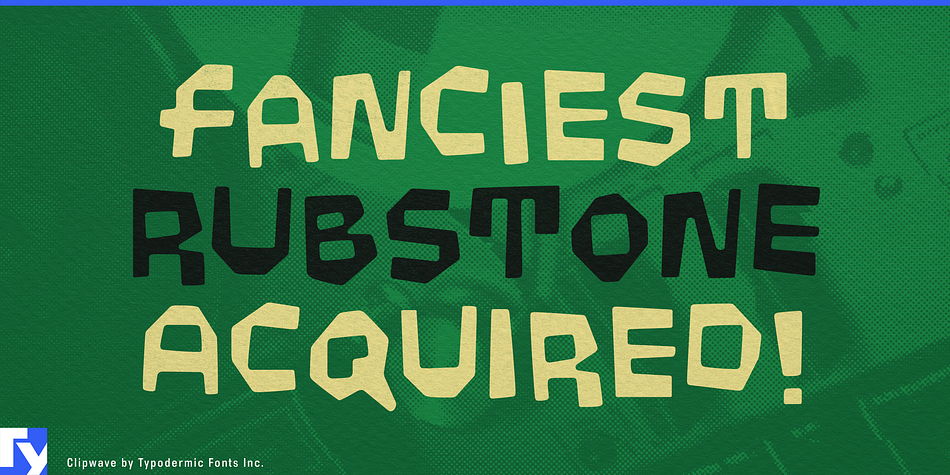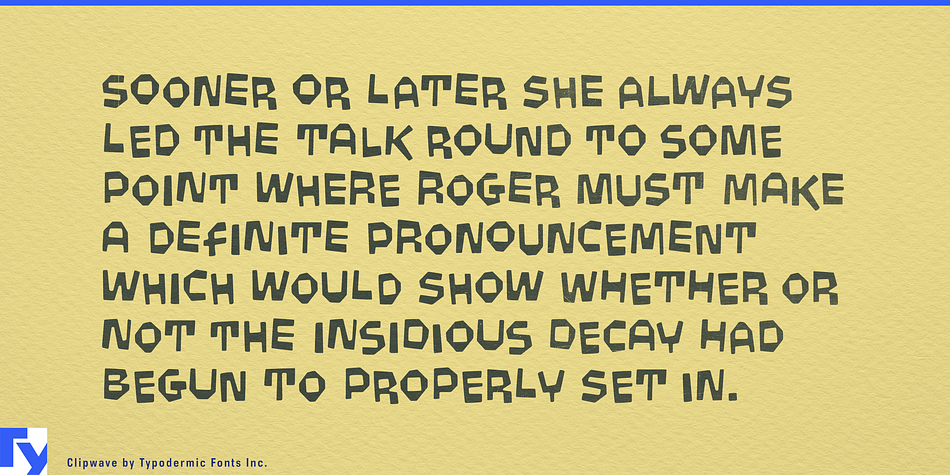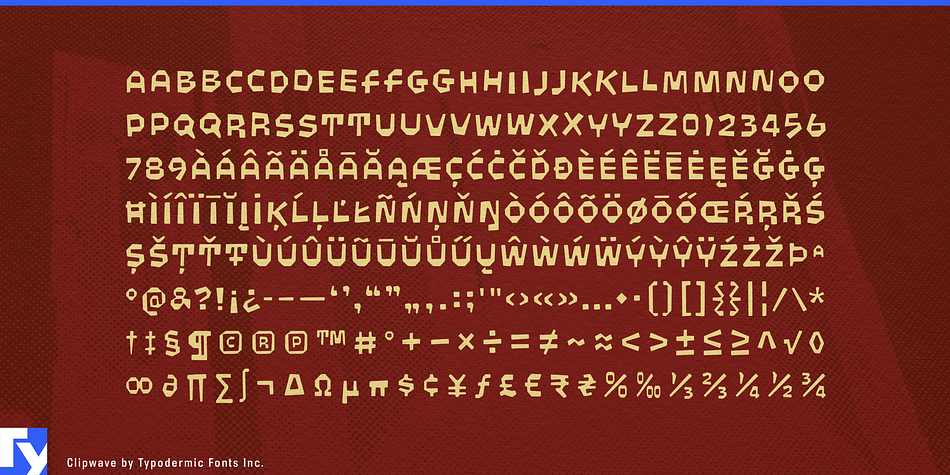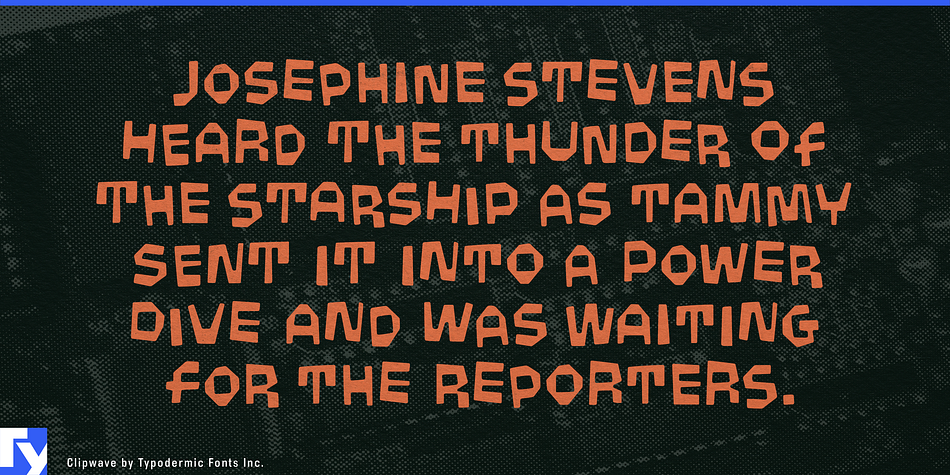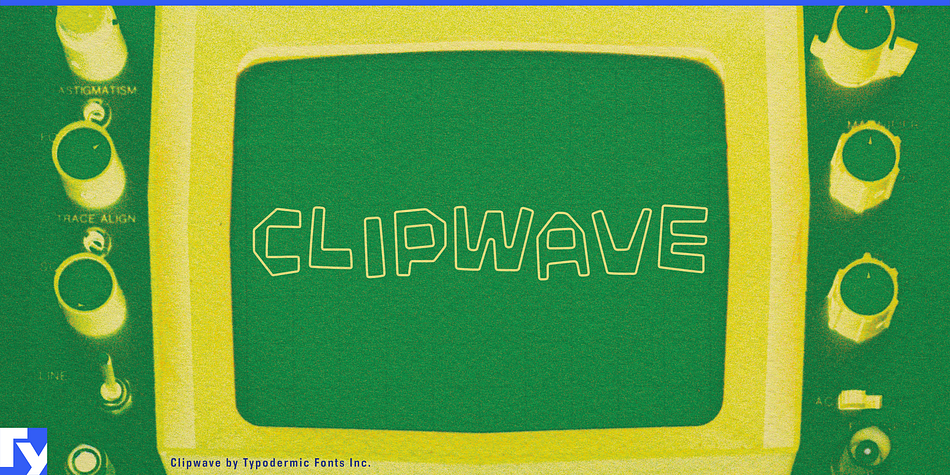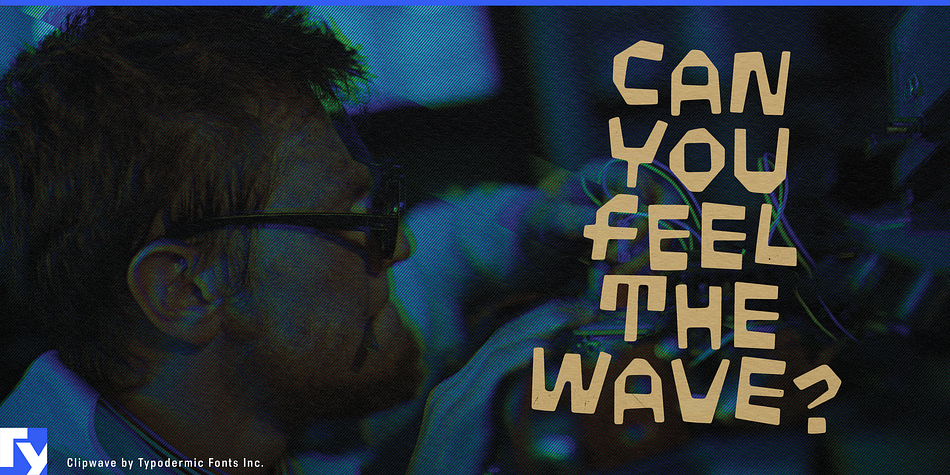
Clipwave is a novelty and retro font published by Typodermic Fonts Inc.
Crimped wires and robot vacuum tracking patterns were the inspiration for this loose headliner. If your app supports OpenType ligatures, Clipwave will shuffle letter, space and numeral variations for extra cool points.